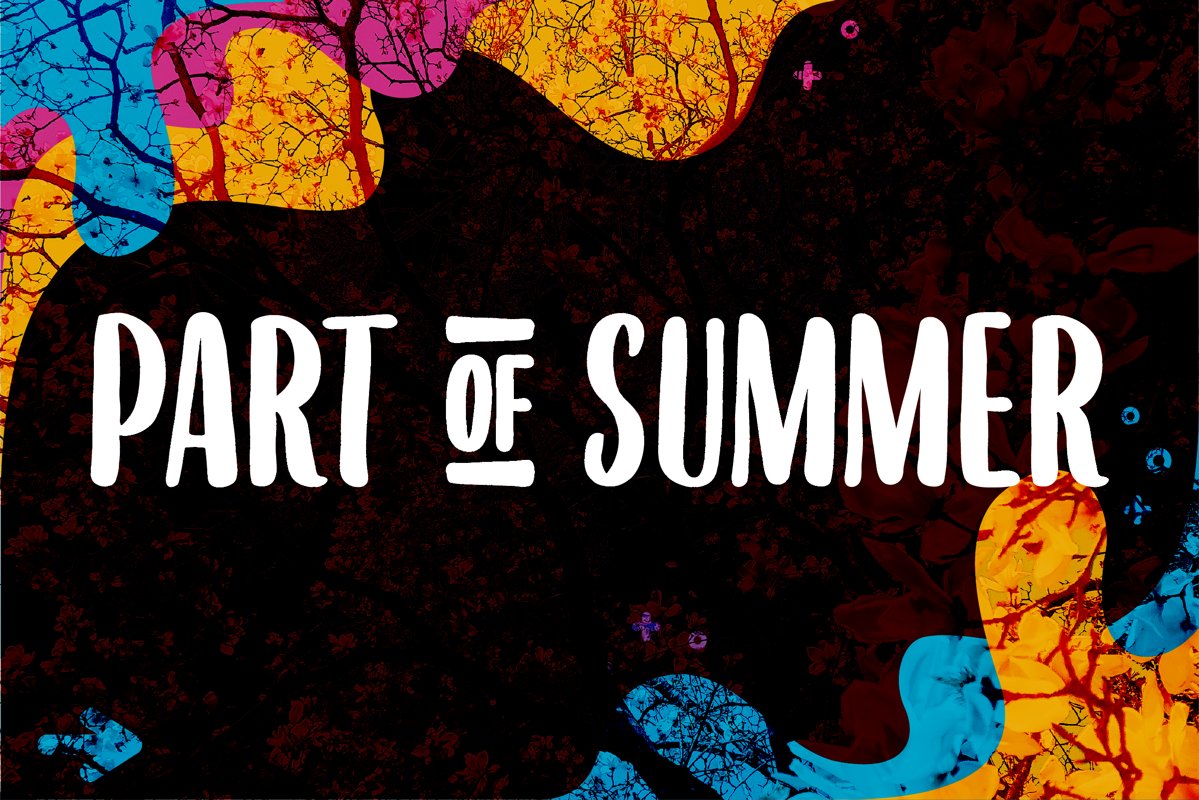
Part of Summer
Part of Summer is a font inspired by a handwriting from my son. The natural beauty that is typical of children, makes the Part of Summer blend design with a similar theme. Part of Summer is suitable for posters, clothing, landing pages, posters, etc.